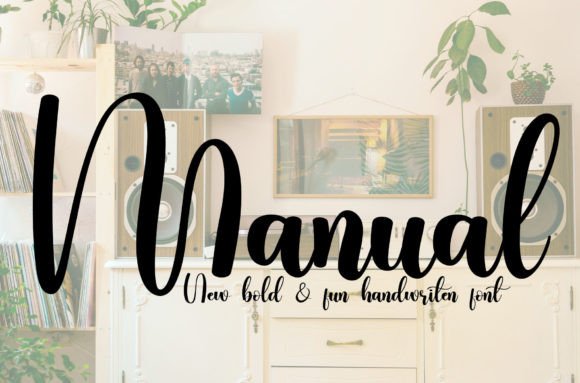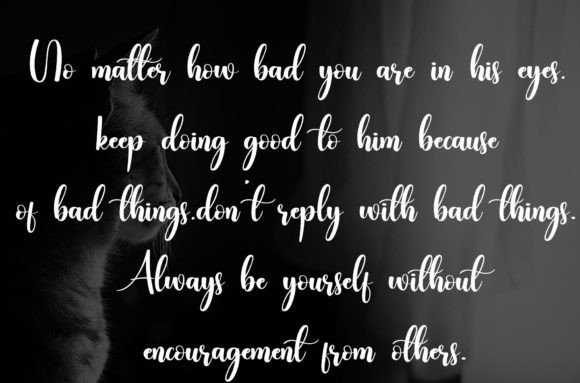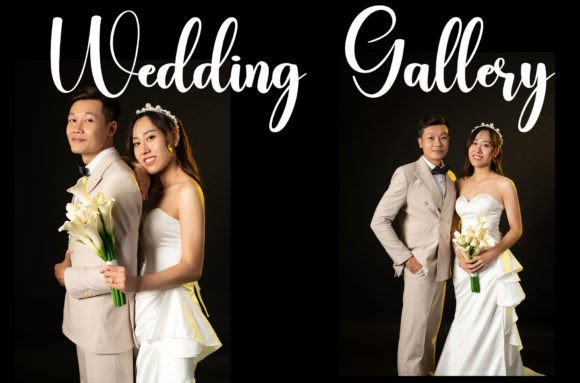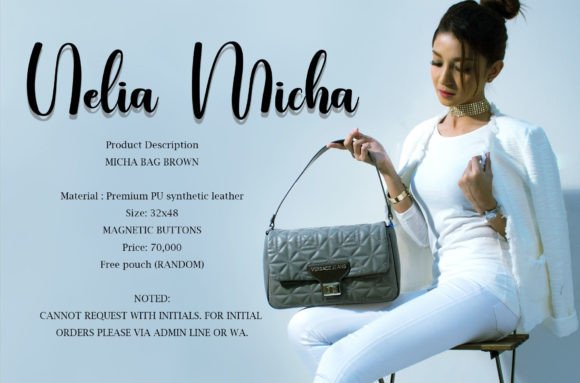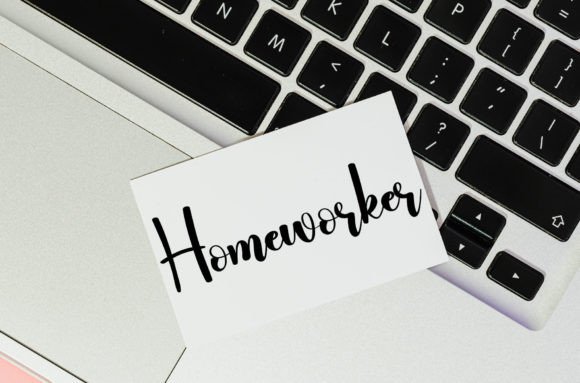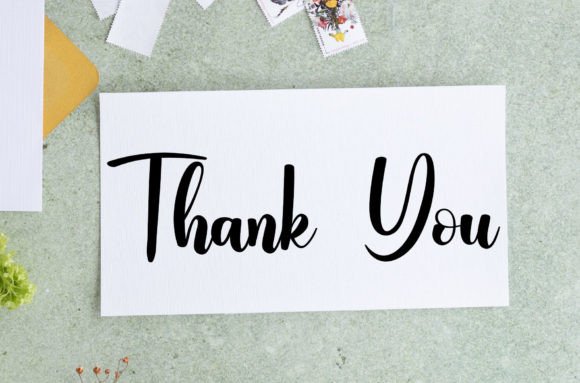
About Manual Font
Add a Romantic Touch with Manual
The Manual font download brings a sweet and smooth handwritten style to your creative toolkit. With its charming curves and flowing lines, this font feels warm, personal, and perfect for heartfelt designs.
Perfect for Invitations, Cards & More
Whether you’re designing wedding invitations, love notes, or greeting cards, this font adds a playful yet elegant feel. Here are some great use cases:
Wedding invitation suites
Greeting cards and love letters
Scrapbooking and journaling
Social media quotes and posts
Personal branding or blogs
Sweet, Smooth, and Readable
Manual is more than just cute—it’s highly legible and thoughtfully balanced. Its playful yet polished appearance makes it ideal for romantic projects that need a personal, handwritten feel without sacrificing clarity.